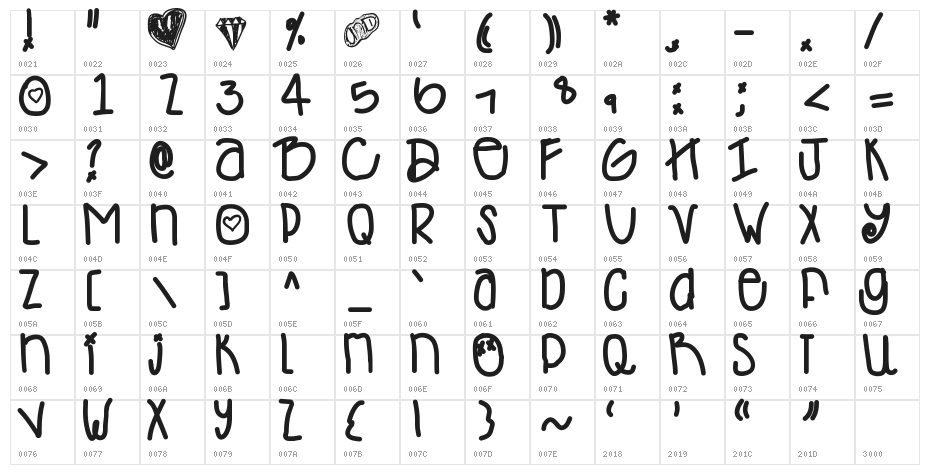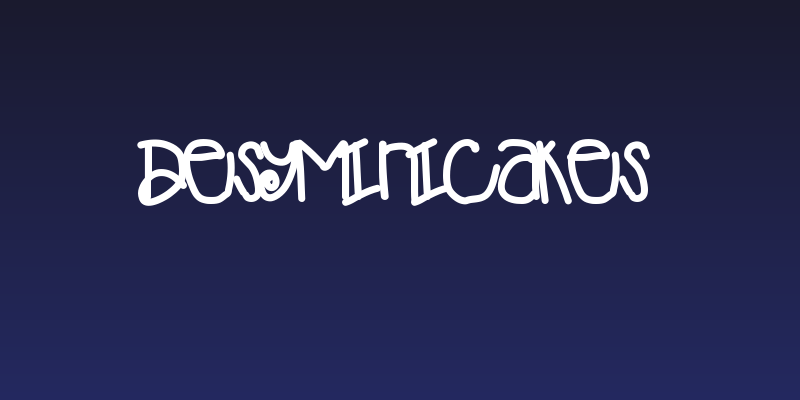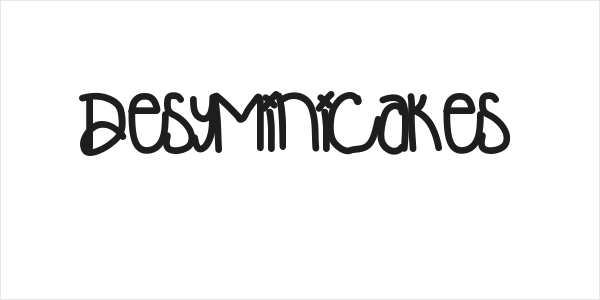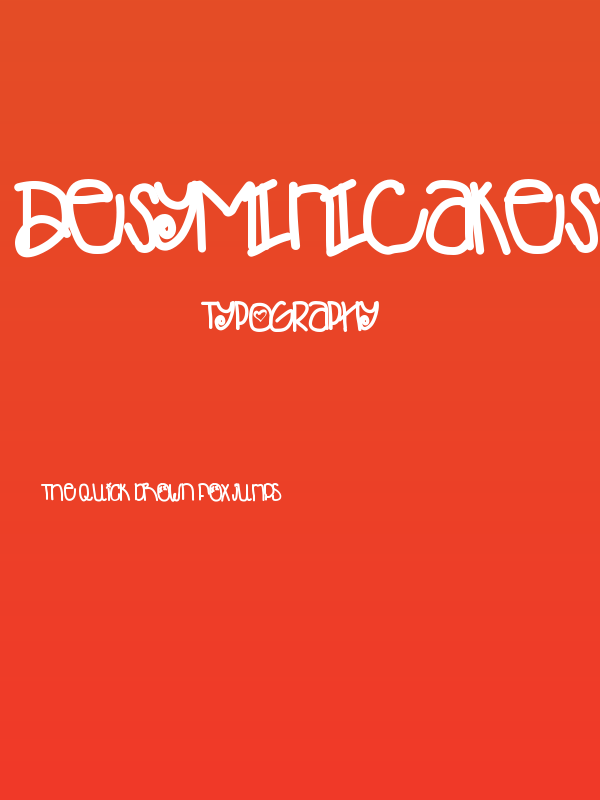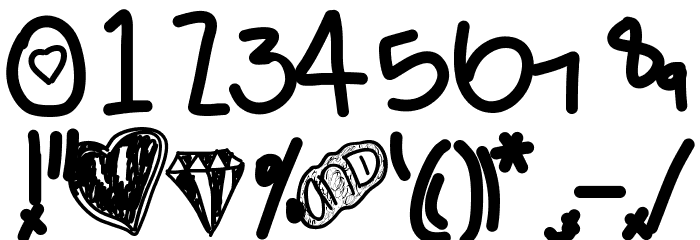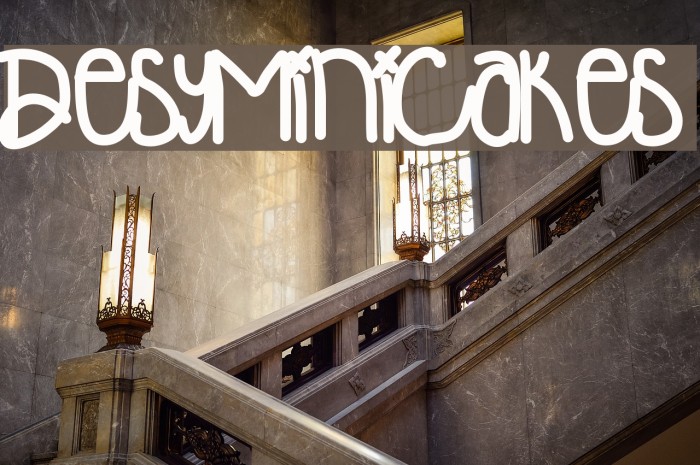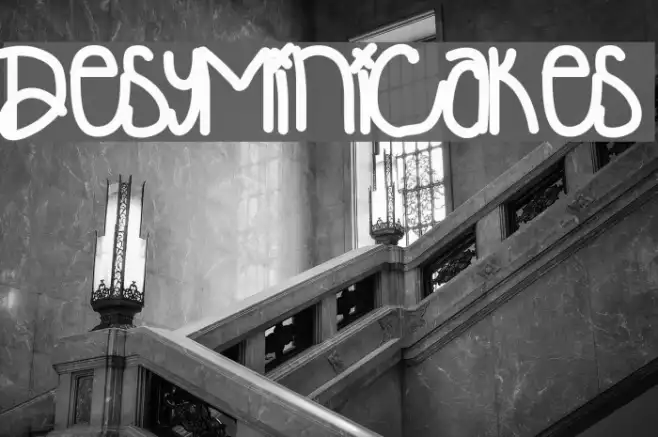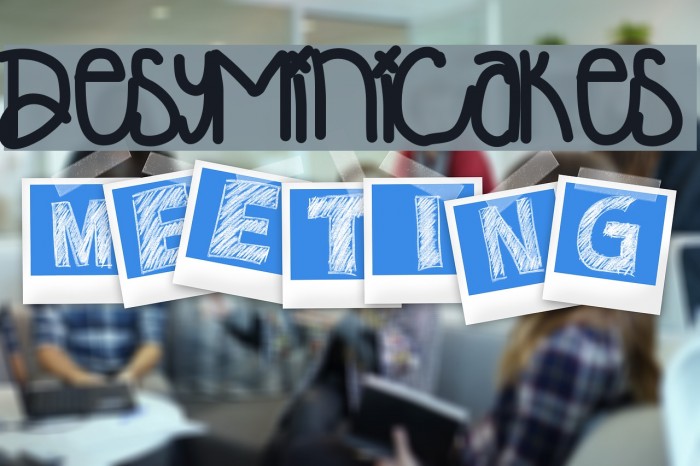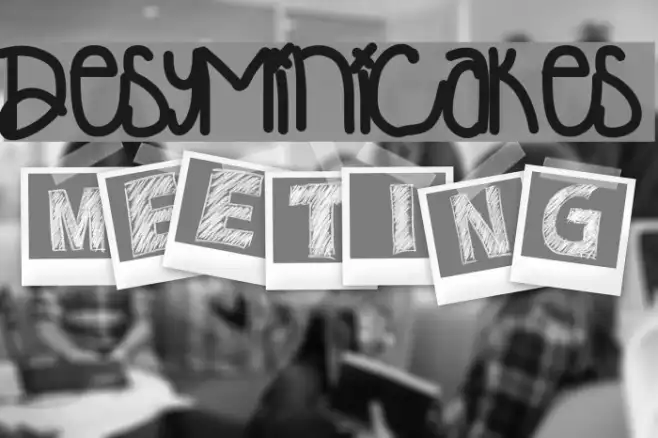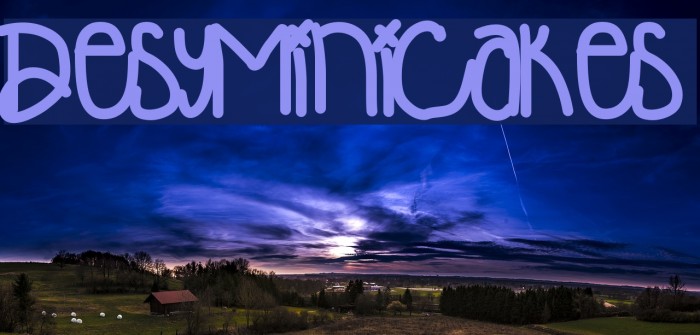
DesyMiniCakes Font
DesyMiniCakes Description
This playful and whimsical font features a handwritten style with a bold and expressive character. The letters are rounded and slightly irregular, giving it a casual and friendly appearance. The uppercase and lowercase letters maintain a consistent style, with some unique embellishments such as hearts and stars integrated into certain characters. The numbers and special characters follow the same playful theme, making it ideal for creative and informal projects. The font's thick strokes and dynamic shapes make it stand out, while its informal style adds a touch of fun and creativity.
| Proposed Projects | Ideal for children's books, greeting cards, playful branding, and creative social media graphics. |